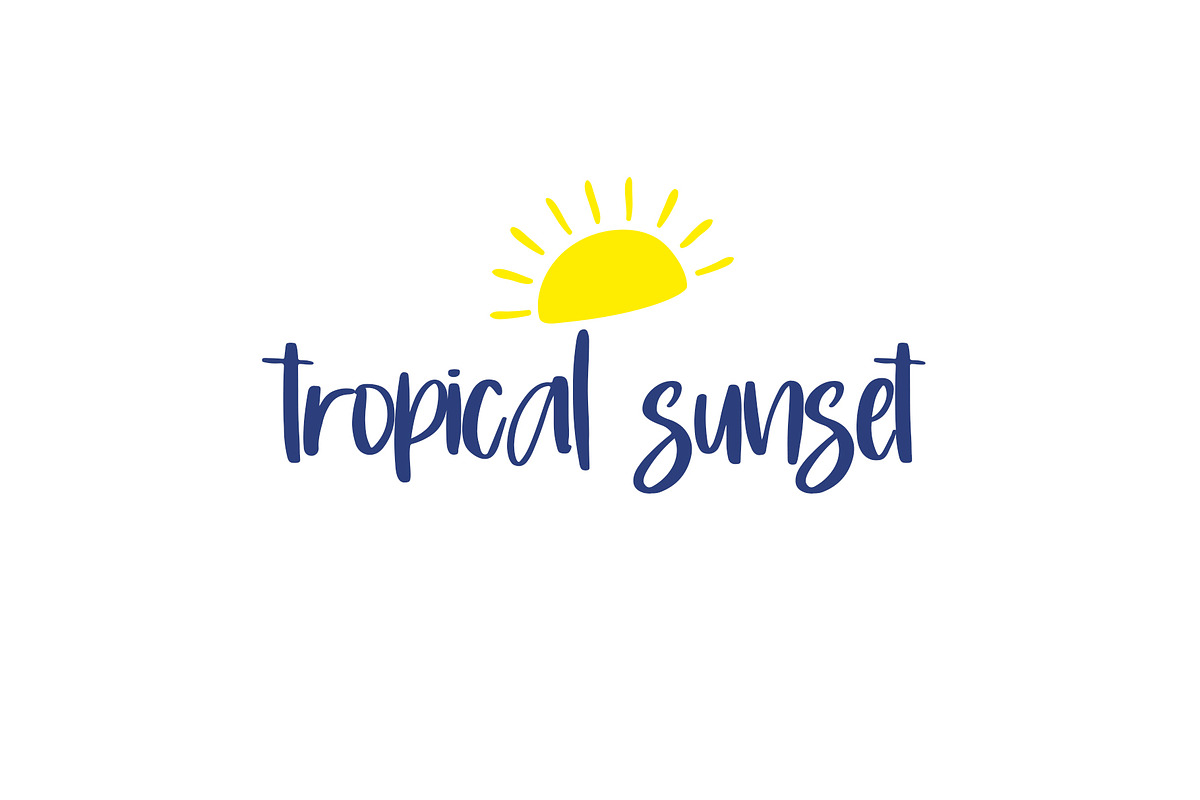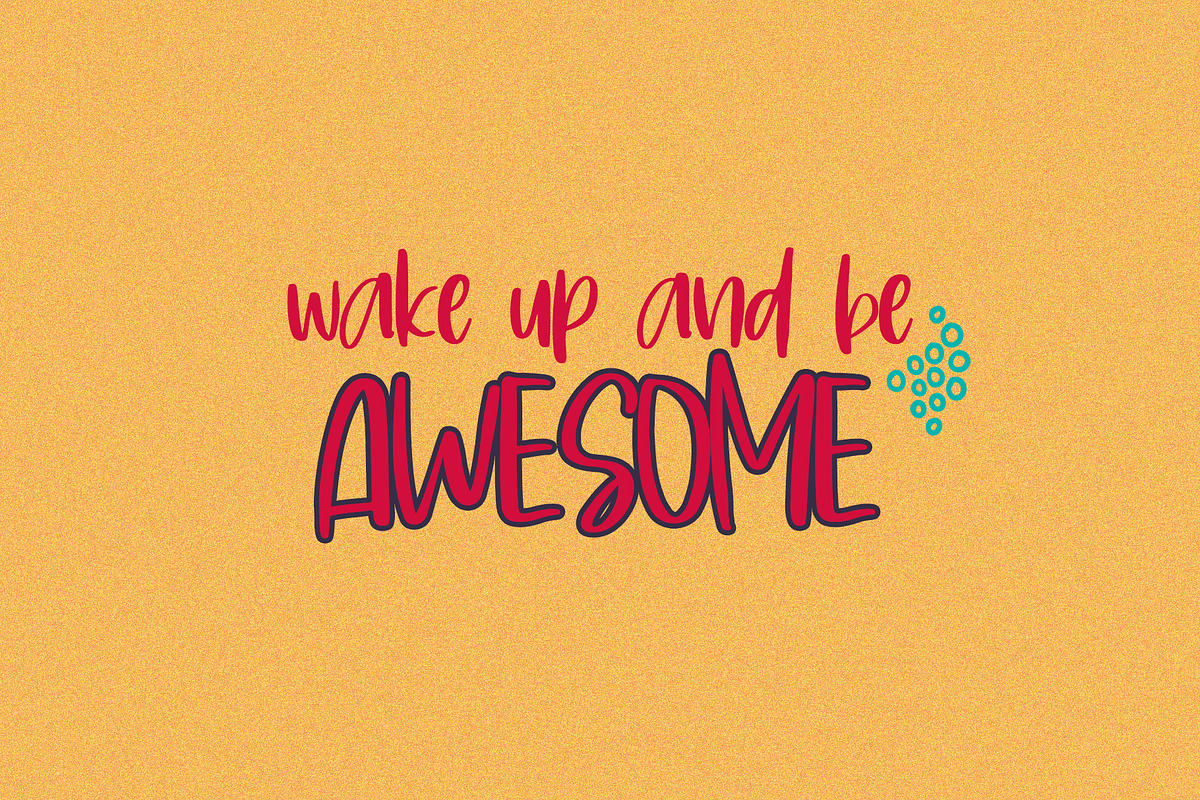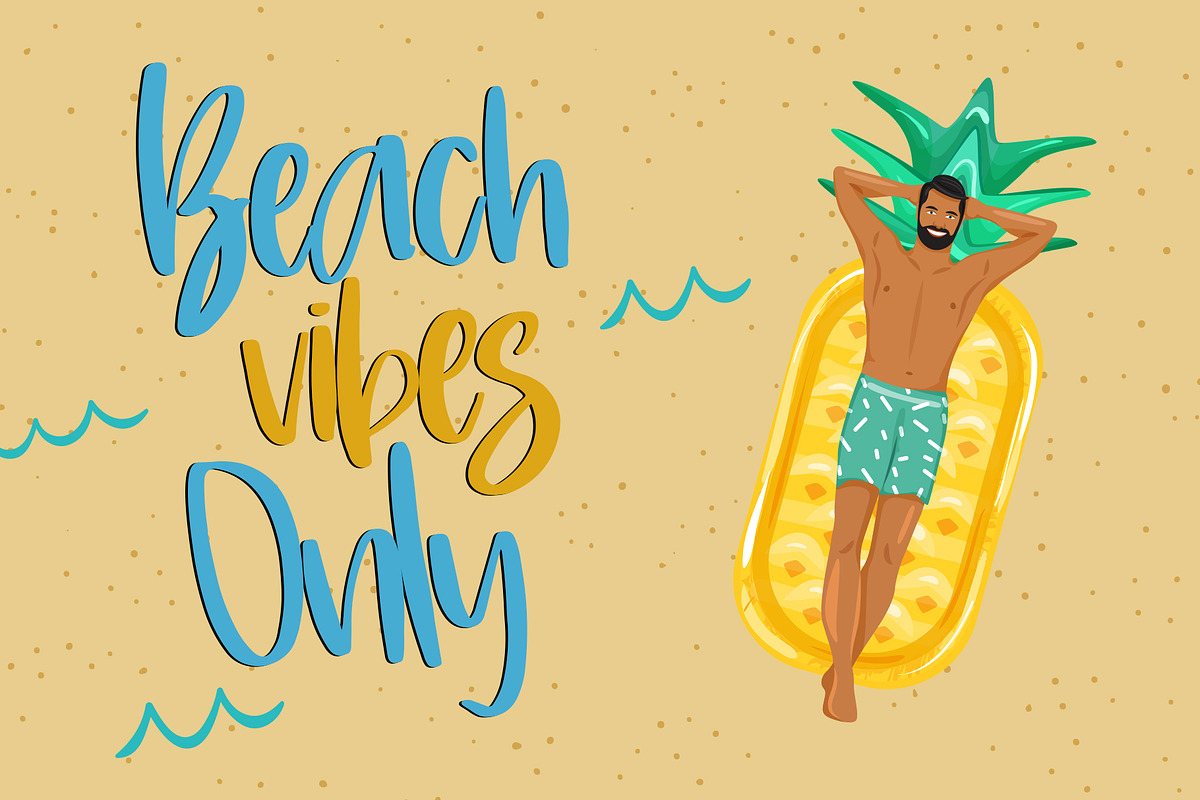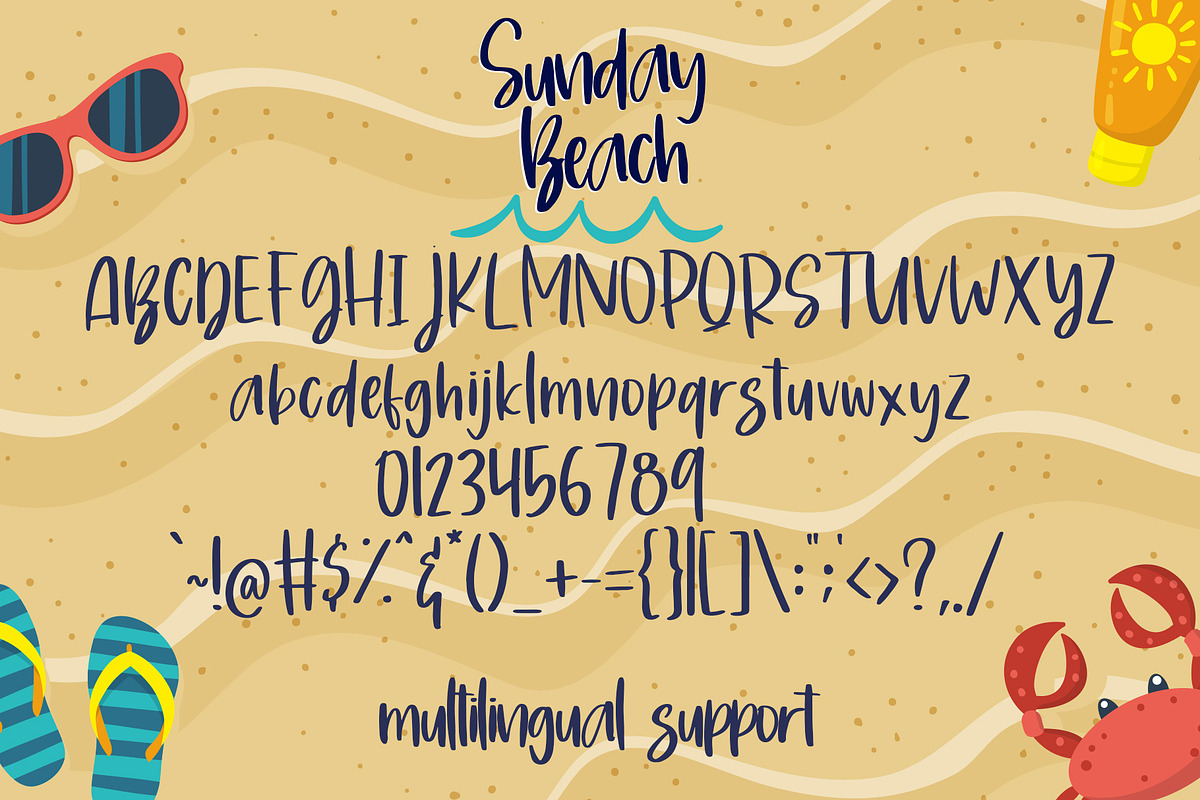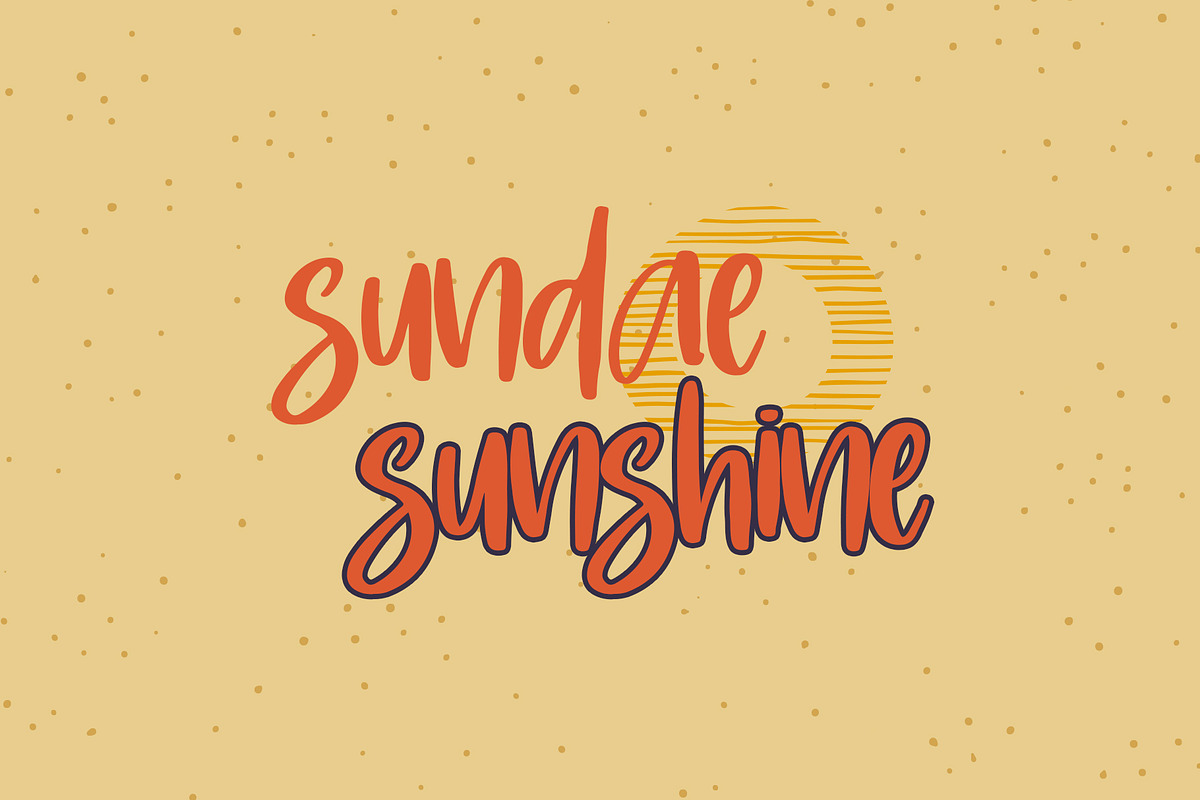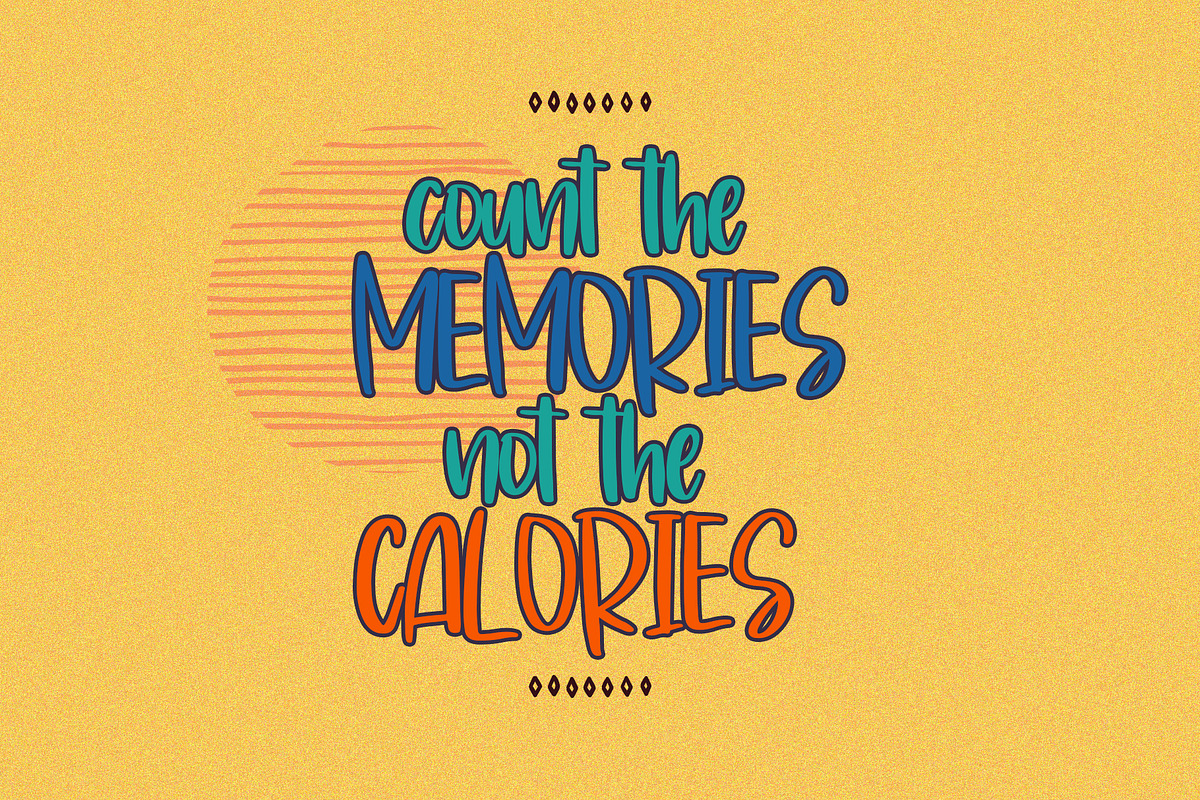
Sunday Beach - Handwritten Font
Sunday Beach Handwritten Font
Sunday Beach is a quirky, cool and relax handwritten font. Make your design looks fun and modern with this font style!
Sunday Beach - Handwritten Font by Dm Studio fits naturally into Branding, posters, packaging, typography.